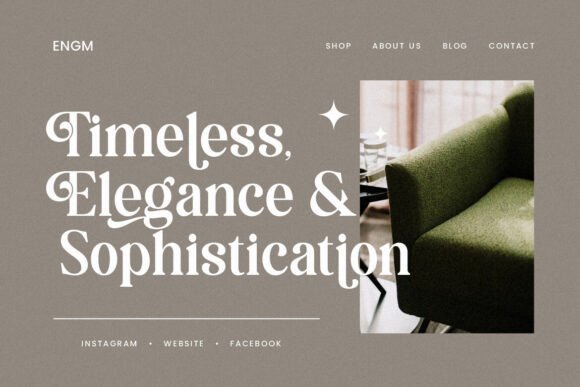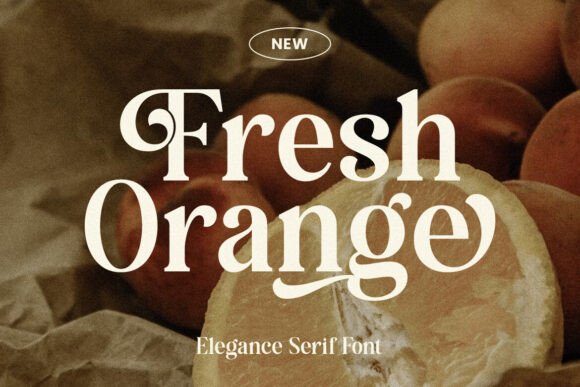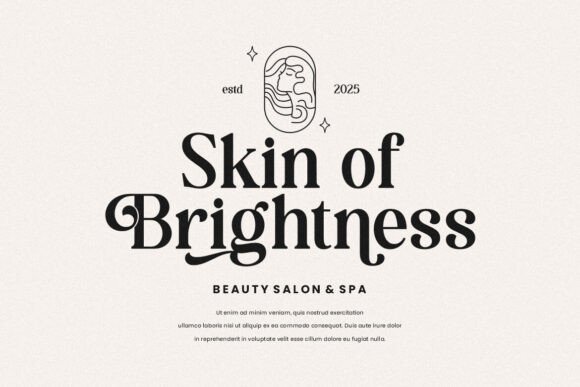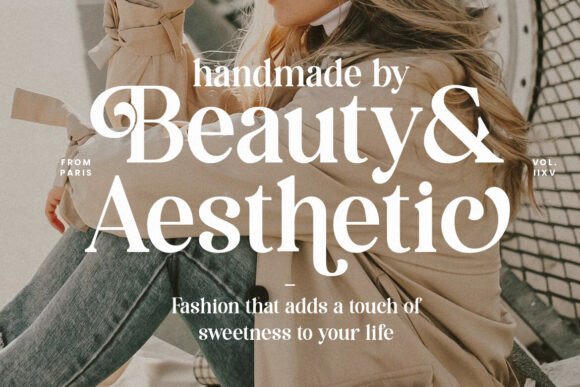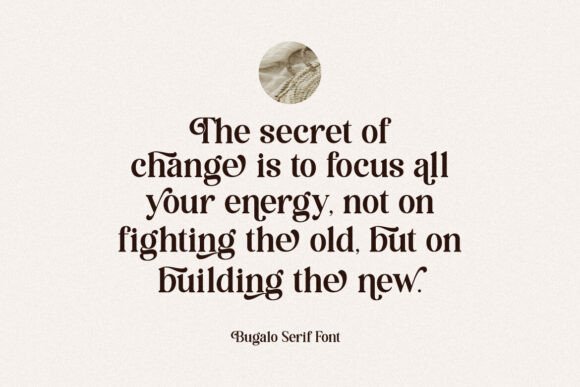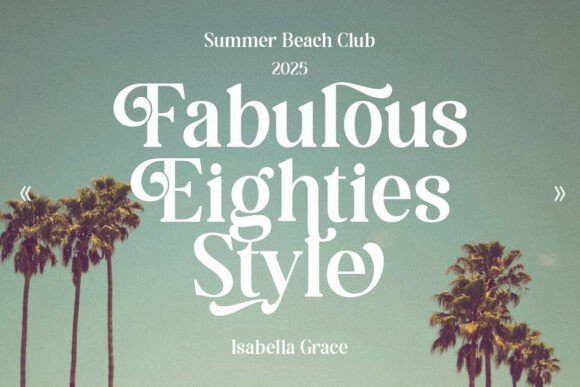
The Bugalo Serif Font: A Playfully Nostalgic Design Essential
- ✨ The font’s playfully nostalgic vibe is perfect for adding a retro touch to any design.
- ✅ The vintage aesthetic is incredibly well-crafted, making it a true favorite among designers.
- 💫 The font is PUA encoded, making it easy to access all the glyphs and swashes.
- 🎨 The font’s versatility allows it to be used in a wide range of design projects, from crafting to professional design work.
- 🤔 Some users may find the font’s nostalgic feel a bit overpowering for certain design projects.
The Designer Inspiration Behind Bugalo Serif
The Bugalo Serif font was designed with one goal in mind: to create a font that captures the essence of vintage design. The designer, inspired by classic typography and nostalgic aesthetics, crafted a font that’s both playful and sophisticated. The result is a font that’s perfect for adding a retro touch to any design project.
| Font Name | Bugalo Font |
| Author | HansCo |
| Q: Is Bugalo Serif suitable for body text? | A: While Bugalo Serif is a beautiful font, it’s best suited for headlines and titles. For body text, you may want to consider a more traditional serif font. |